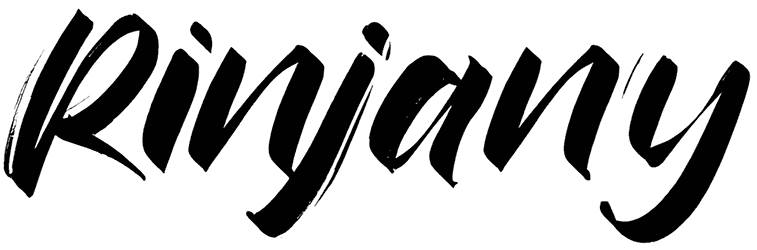
Rinjany Font
The wacky letters and thick structure of the script brush font Rinjany make it an excellent choice for use in daring projects such as comics, posters, and urban design.